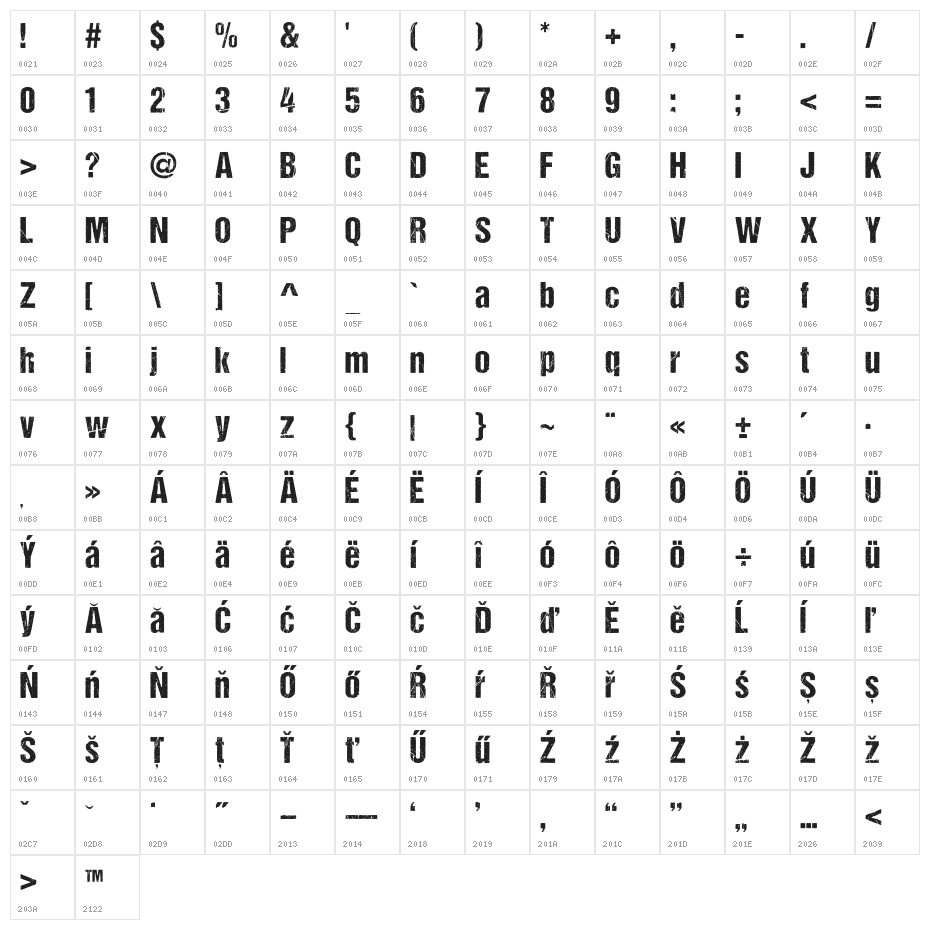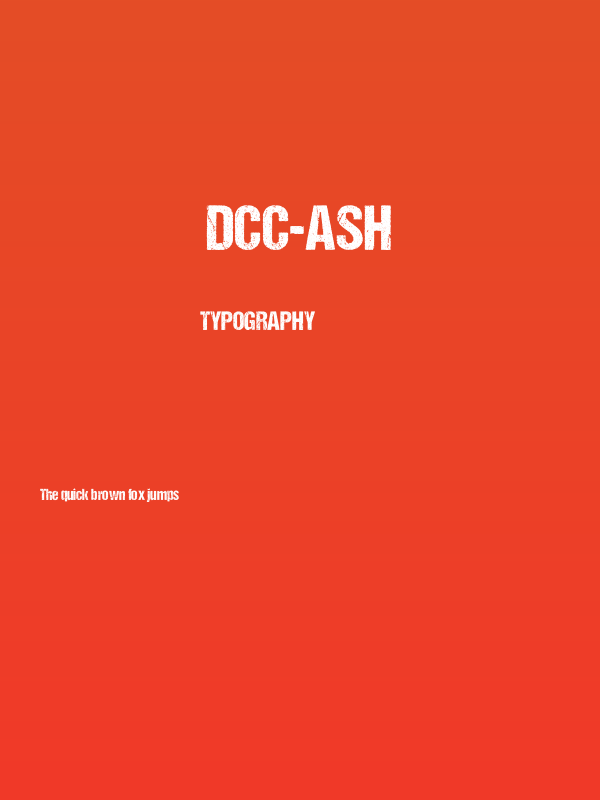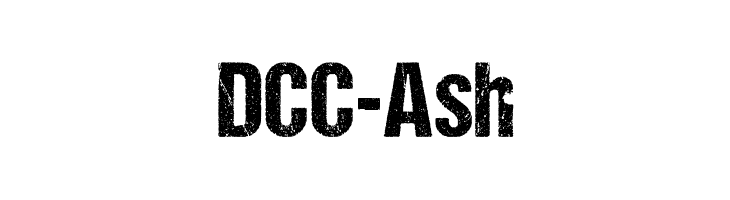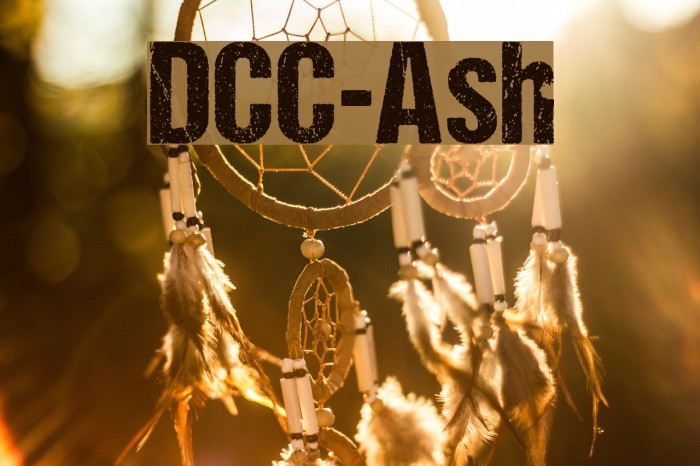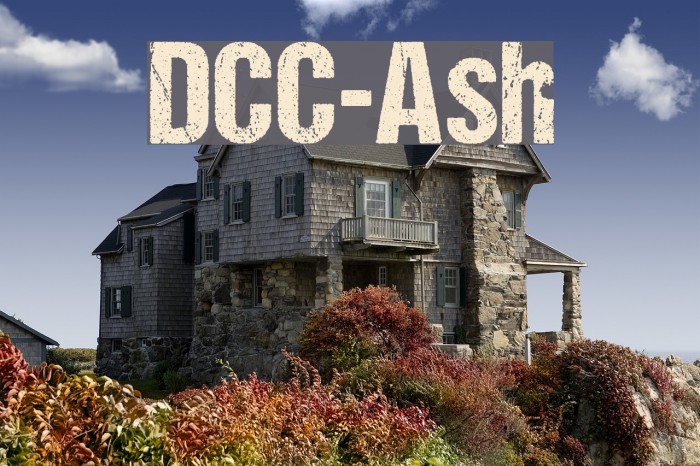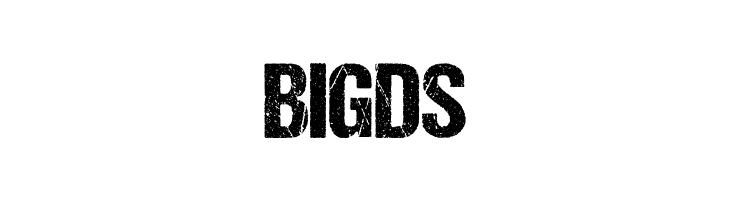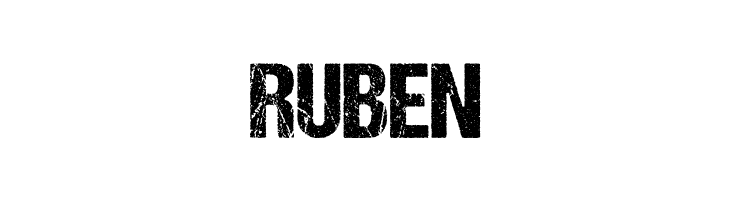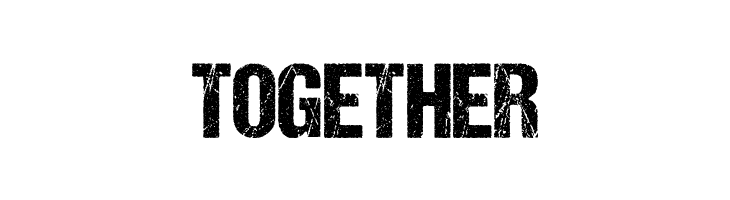
DCC-Ash Font
DCC-Ash Description
This font features a bold, distressed style with a rough, textured appearance that gives it a vintage, worn-out look. The characters are bold and impactful, making them stand out with a strong presence. The uppercase and lowercase letters maintain a consistent weight, while the numbers and special characters follow the same rugged design. The texture adds a unique character to each glyph, making it ideal for projects that require a gritty, industrial feel. The font's overall style is both eye-catching and versatile, suitable for various creative applications.
| Overall Style | Vintage |
| Proposed Projects | Ideal for posters, album covers, branding, and any design needing a rugged, vintage touch. |